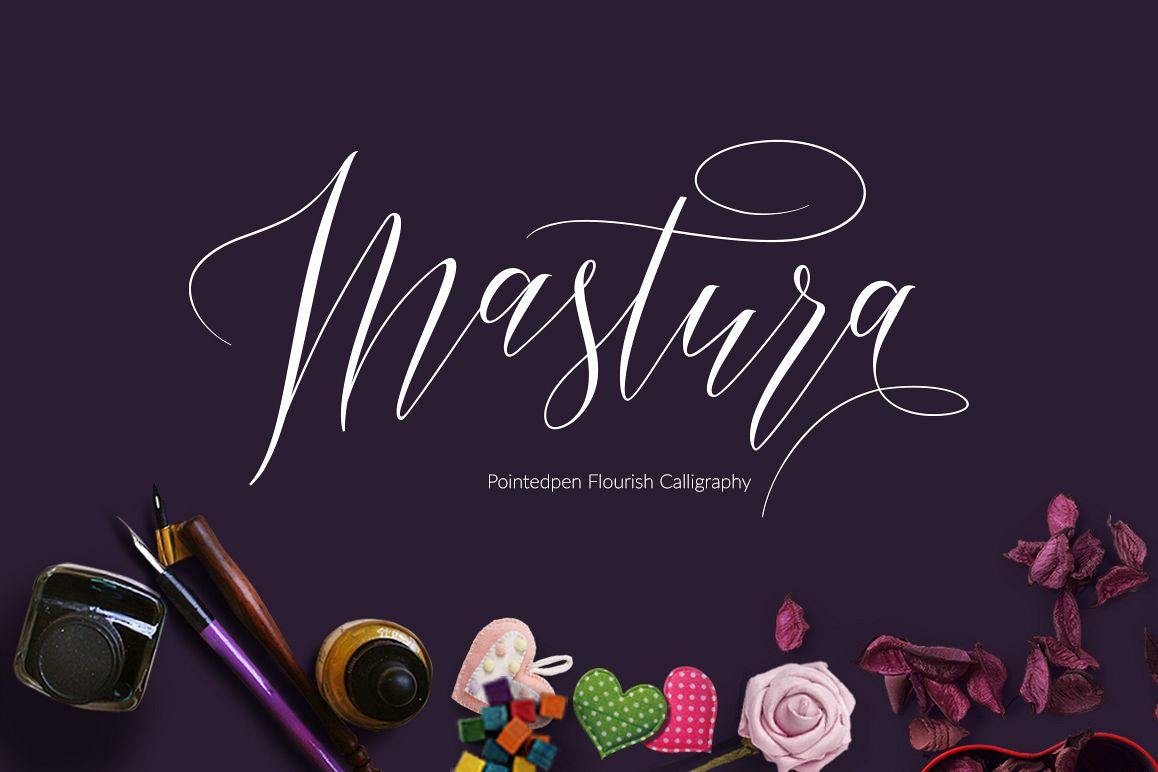
Mastura
Mastura scrip
Mastura swash
Mastura Script font Flourish
calligraphy is modern with smooth lines, pointy-edged pull pens, a blend
of classic and modern and elegant touch. Can be used for various
purposes.such as the title, signature, logo, correspondence, wedding
invitations, letterhead, signage, labels, newsletters, posters, badges,
etc. Mastura Script features 533 glyphs and has given PUA unicode
The Features of this fonts is:
• Contextual Alternates
• Standart ligatures
• Swashes
• Stylistic Sets 1-8
Basic Latin A-Z and a-z Numbers Symbols